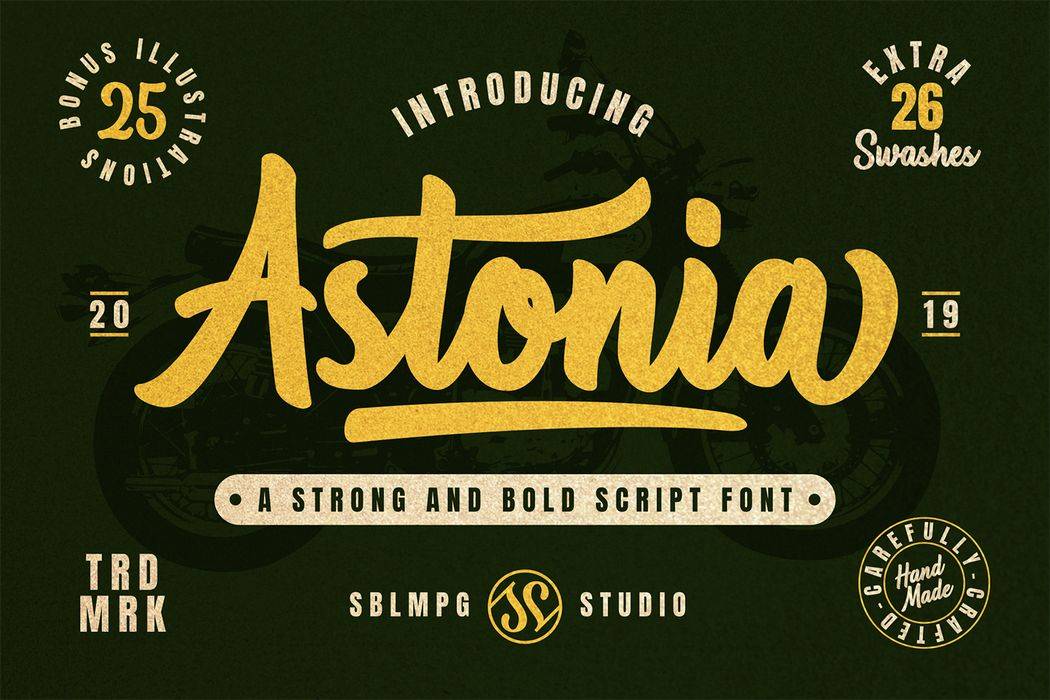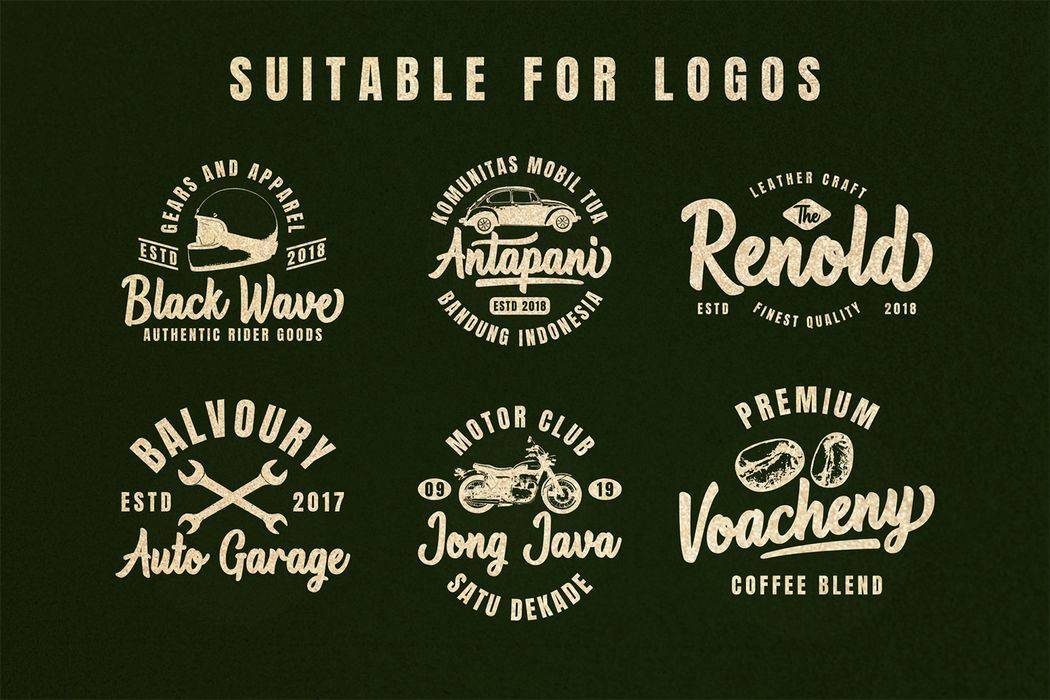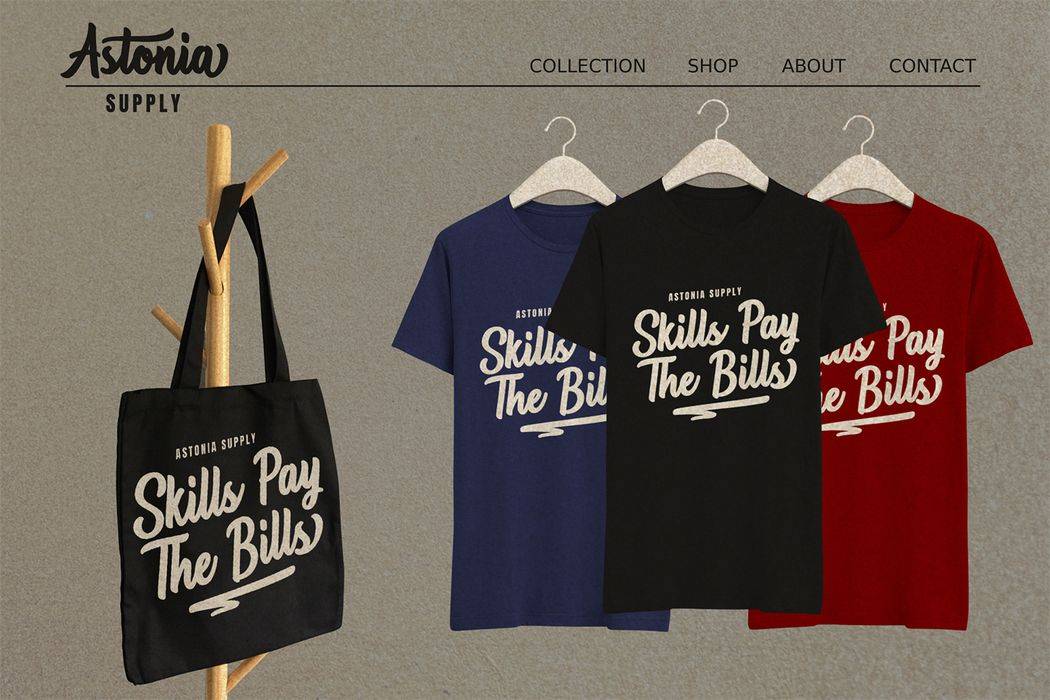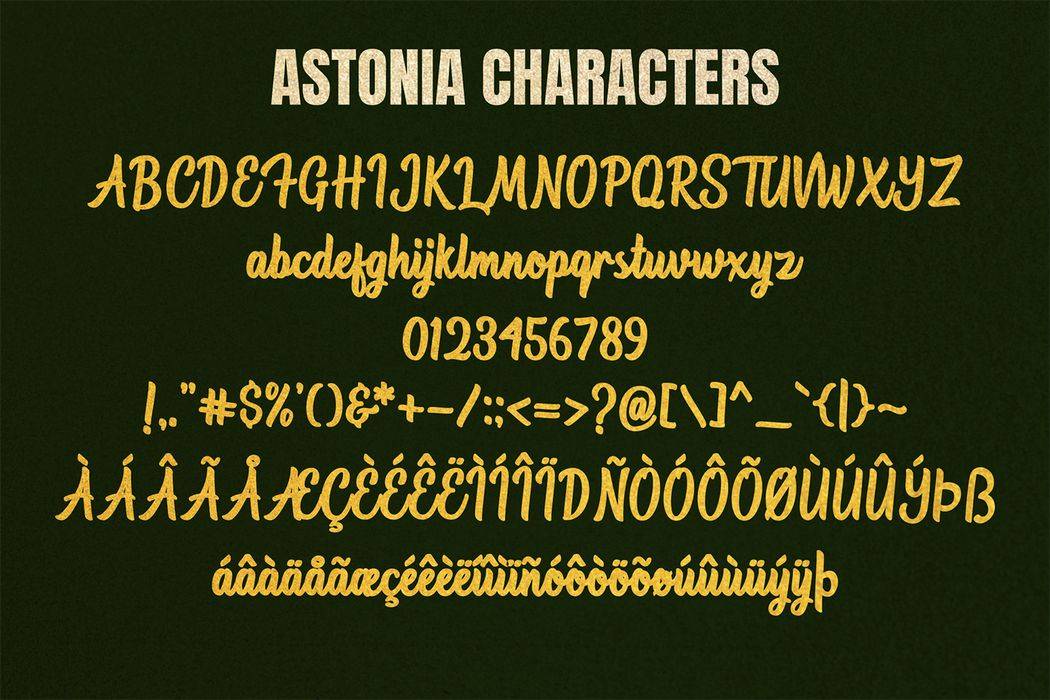
Astonia is an expressive script font with a bold, hand-lettered style that combines a playful yet elegant personality. Its medium weight and moderately condensed forms, along with smooth curves and distinct letter shapes, make it ideal for eye-catching headlines, logos, and creative branding that seek a friendly and unique feel. This font works well in designs aiming to balance warmth and sophistication with a personal touch.
Astonia Font
About Astonia Font